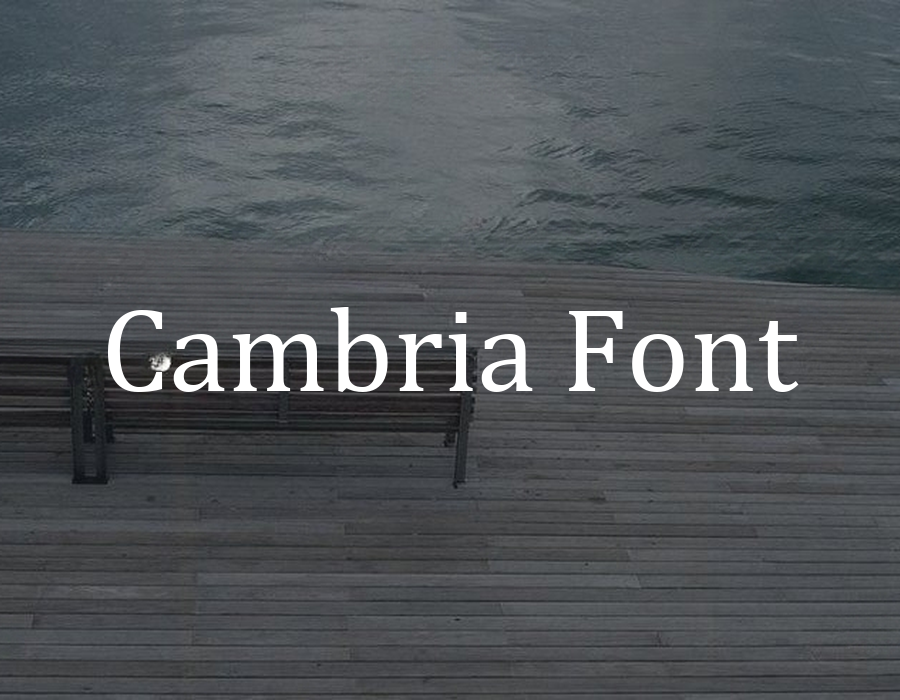
About Cambria Font
Cambria is a transitional serif typeface designed specifically as a system font for Microsoft, optimized for on-screen readability in body text. It features strong, sturdy letterforms with a large x-height, open apertures, and subtle stroke contrast to remain clear even at small sizes on low-resolution screens. Part of the Microsoft ClearType Font Collection, its robust design minimizes blurring and maintains character distinction, making it an excellent default choice for lengthy documents, presentations, and web content where comfortable reading is essential. Its professional yet approachable tone has made it ubiquitous in business and academic communications.